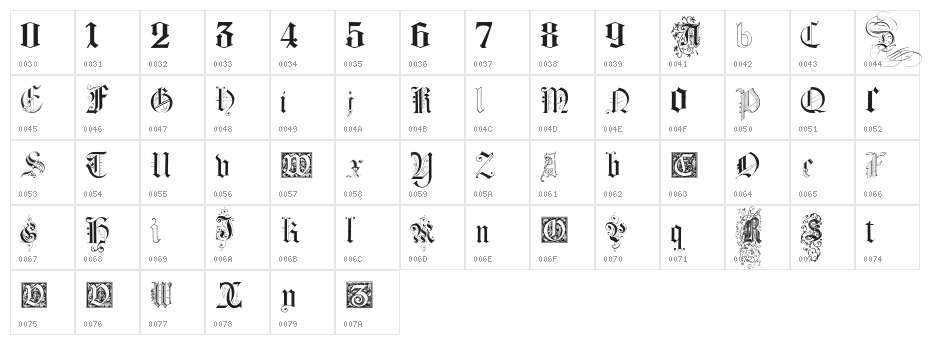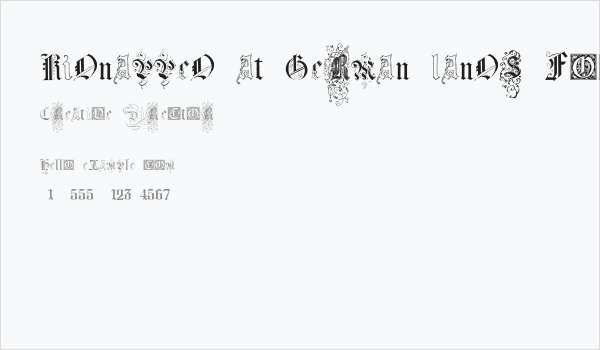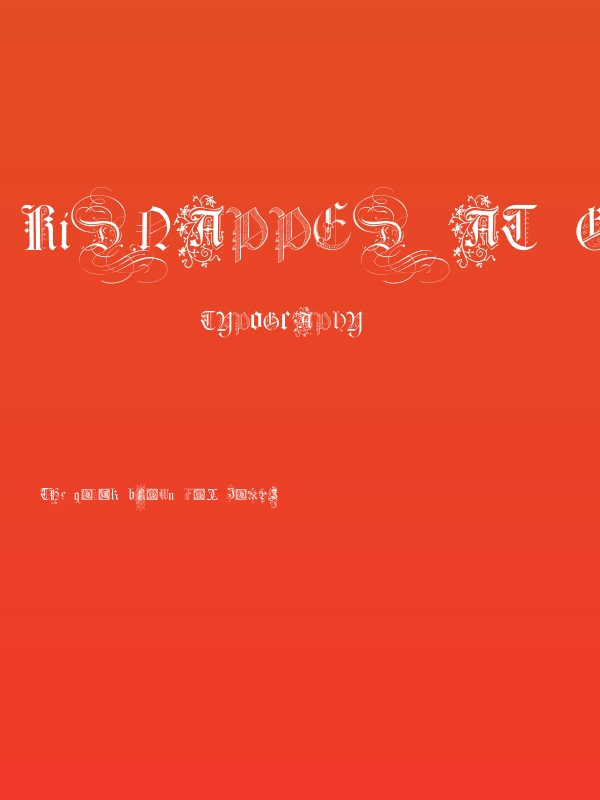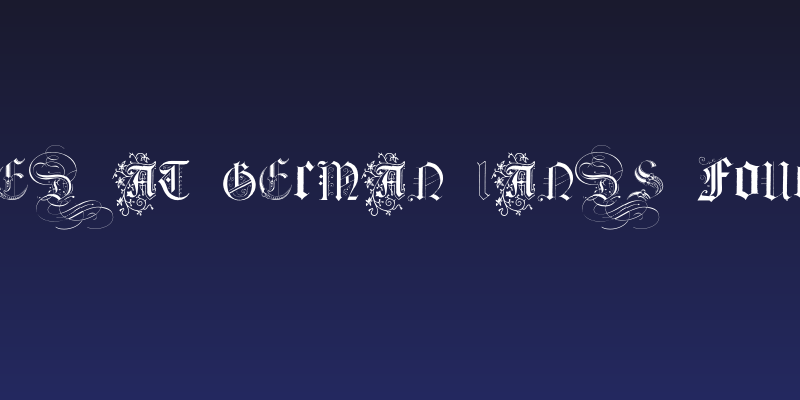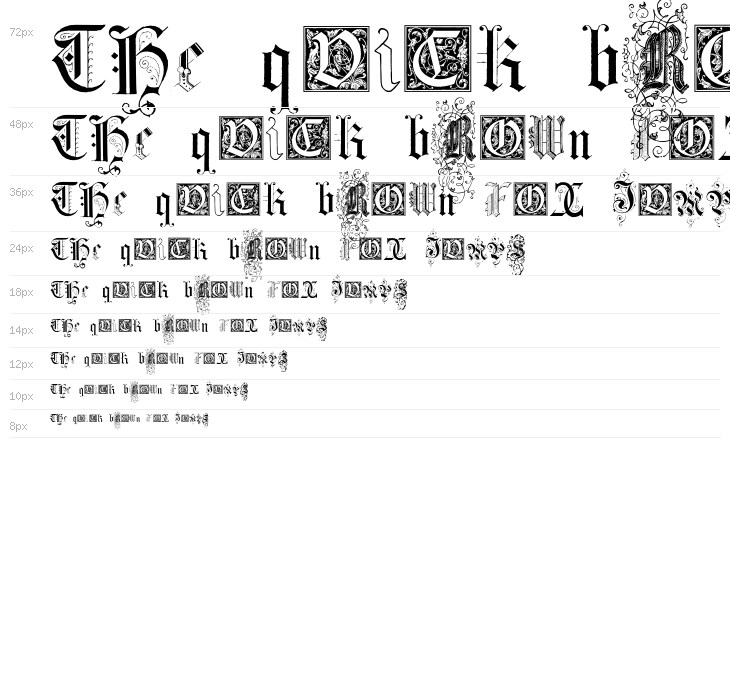
Kidnapped at German Lands Four Regular Font
Kidnapped at German Lands Four Regular Description
This font is an elaborate and ornate typeface that draws inspiration from traditional Blackletter styles. It features intricate details and flourishes, with each character adorned with decorative elements that evoke a sense of historical elegance. The uppercase letters are particularly embellished, with some characters incorporating floral motifs and swirling lines. The lowercase letters maintain a similar level of detail, ensuring consistency throughout the typeface. The numerals are bold and maintain the decorative style, making them stand out. Overall, this font exudes a vintage and gothic aesthetic, perfect for projects that require a touch of classic sophistication.
| Use Case | Logos, Headlines, Decorative purposes |
| Proposed Projects | Ideal for historical-themed designs, wedding invitations, book covers, or any project seeking a classic and sophisticated look. |